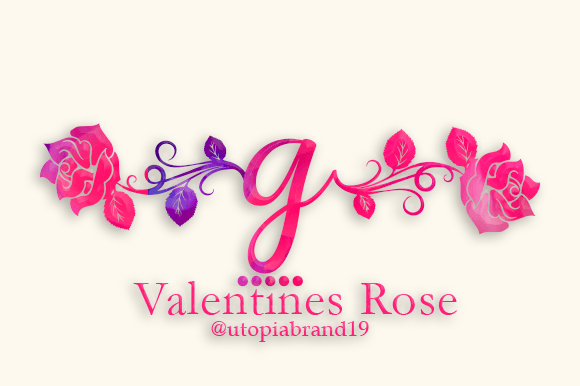
Introducing the perfect font for creating romantic letters: Valentine's Rose Monogram. Designed by the talented utopiabrand19, this decorative font is ideal for adding a touch of elegance to your projects. With its charming ornaments, Valentine's Rose Monogram captures the essence of romance and adds an authentic feel to your designs.
Fall head over heels with this font and use it to create stunning wedding invitations that will leave your guests in awe. Create beautiful stationary art that will make you the envy of all your friends. Design eye-catching social media posts that are sure to attract attention. Or create cute greeting cards that are perfect for expressing your love and affection.
Valentine's Rose Monogram is the best font for romantic letter writing, and it's not hard to see why. Its captivating style is perfect for capturing the essence of your message and conveying your emotions. So, whether you're professing your love or expressing your appreciation, Valentine's Rose Monogram is the perfect choice.
Don't settle for anything less than perfection. Choose Valentine's Rose Monogram for all your romantic letter writing needs and fall in love with its authentic feel and captivating style.